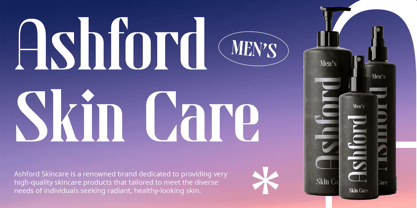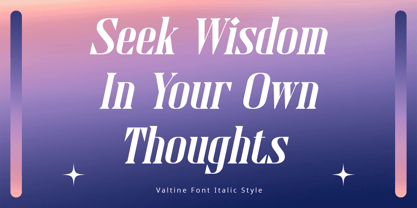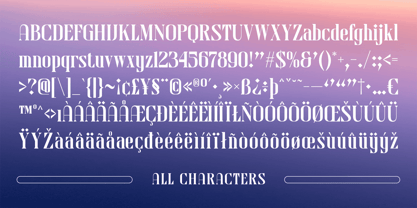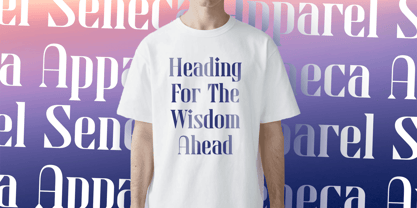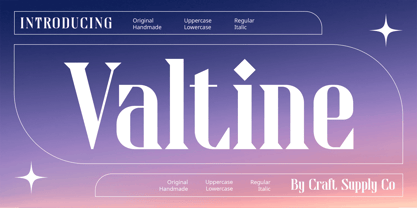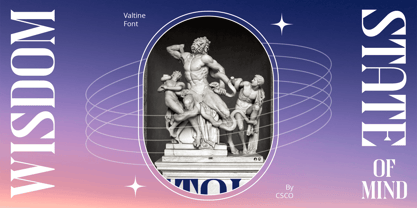
Valtine
by Craft Supply Co
The Valtine Font Family was designed by Trio Nazzar Saputra, Wahyu Hadi Yuana and published by Craft Supply Co. Valtine contains 2 styles and family package options. More about this family
Valtine Modern Serif: Embracing High Contrast Bold and Striking Valtine Modern Serif stands out with its high contrast design, commanding attention with every stroke. Its bold presence makes it perfect for headlines and impactful statements. Contemporary Elegance With a modern twist on the classic serif style, This Modern Serif exudes sophistication. Its sleek lines and refined curves give it a contemporary edge, ideal for sleek and stylish designs. Versatile Application This font offers versatility, suitable for a wide range of design projects. From editorial layouts to branding materials, This Modern Serif adapts effortlessly to various contexts, ensuring consistency and coherence. Perfect for the Modern Era In today’s fast-paced digital landscape, This Modern Serif meets the demand for sleek and contemporary typography. Its high contrast design adds depth and visual interest to any project, making it a go-to choice for modern designers. Contemporary Sophistication This Modern Serif combines the timeless appeal of serif fonts with a contemporary twist, offering versatility and elegance for the modern designer. With its high contrast and modern nuances, it adds a touch of sophistication to any project, ensuring a bold and impactful visual presence.
Designers: Trio Nazzar Saputra, Wahyu Hadi Yuana
Foundry: Craft Supply Co